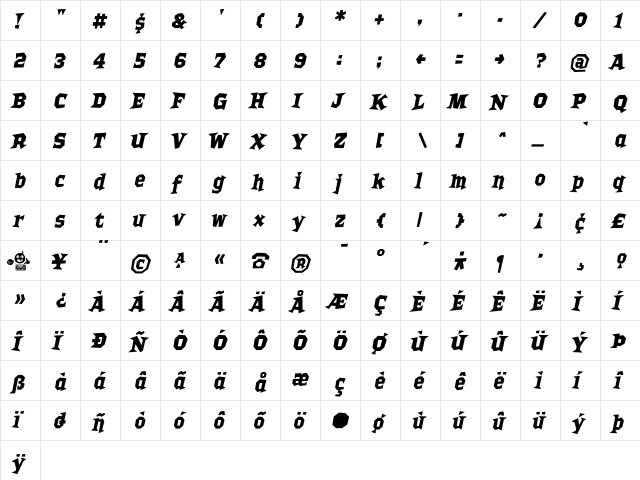
Bordello ItalicBold Font Preview
Bordello ItalicBold
Bordello ItalicBold Font Details
| Style | ItalicBold |
| Foundry | n Hughes . A Device font |
Design Context for Bordello Typeface
Bordello is a composed and adaptable typeface that performs quietly and consistently across a wide range of design contexts. The dynamic lean of this cut emphasises speed and emphasis in any layout. The heavy weight commands attention and anchors typographic hierarchies.
Pro Tip: Try Bordello for annotation and caption copy alongside an upright companion — the contrast in angle creates a dynamic but ordered typographic system.